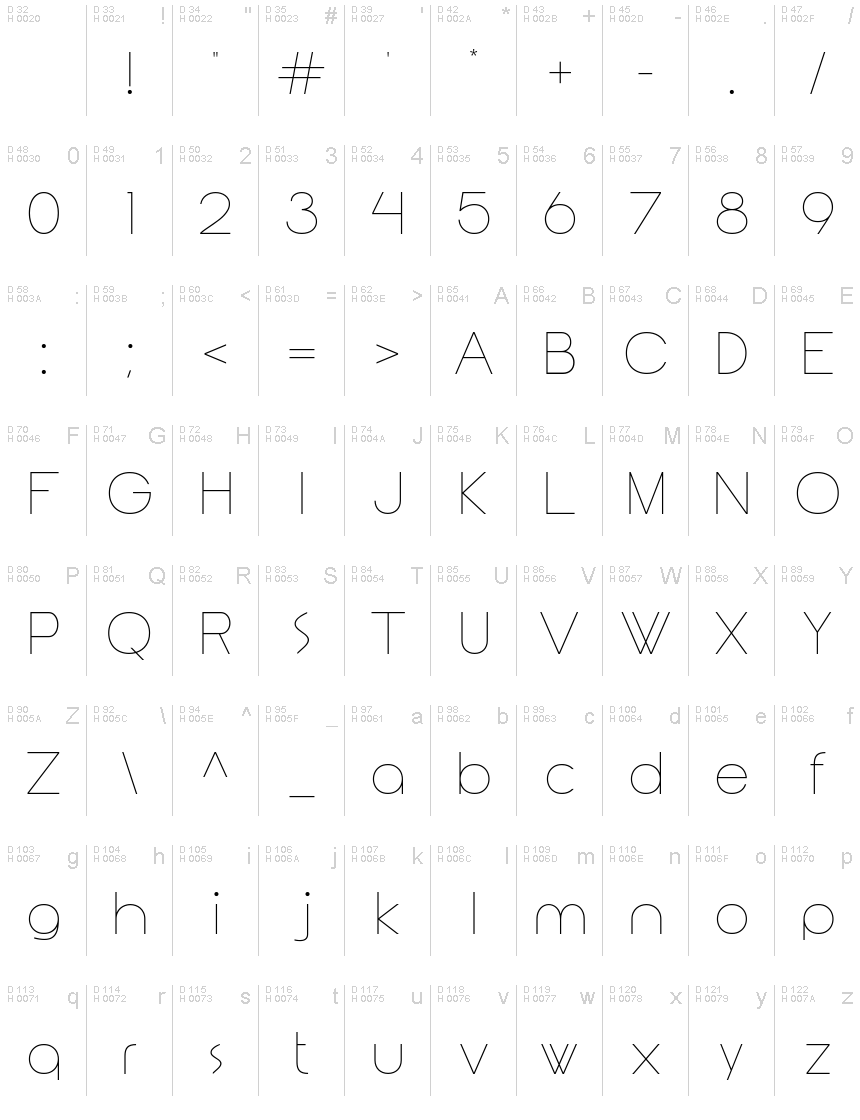
Sahnaz Regular
Sahnaz, a captivating sans-serif font designed by Mulyana Muhaimin, exudes a refined and elegant aesthetic. Its light weight and expanded width create a harmonious balance, evoking a sense of sophistication and refinement. The clean lines and subtle curves of this typographic masterpiece seamlessly blend modern sensibilities with timeless appeal, making it a versatile choice for a wide range of design applications.
With its versatile nature, Sahnaz lends itself effortlessly to a variety of design projects, from sleek branding and editorial layouts to impactful digital interfaces. Its expanded width and light weight make it an excellent selection for headlines, titles, and other display text, where it can command attention without overwhelming the viewer. Equally suitable for body copy, Sahnaz's legibility and refined character ensure a pleasant reading experience across various mediums.